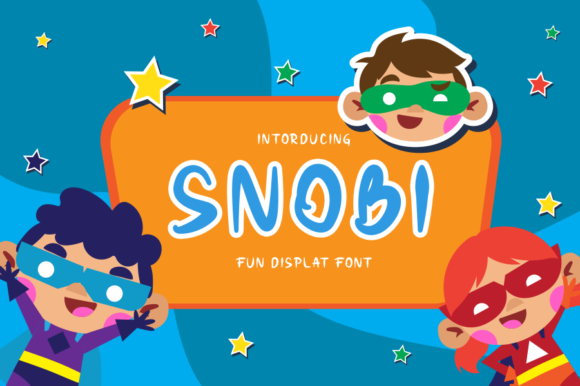
Snobi Font
Unleash your creativity and make a statement with Snobi Font, an extraordinary display font crafted by RantauType. This unique typeface captivates with its bold and cool aesthetics, adding a touch of whimsy and exclusivity to your designs.
With Snobi Font, you'll elevate your projects to new heights, leaving an unforgettable impression on your audience. Its eye-catching style commands attention, making it perfect for headlines, logos, posters, and branding. The font's clean lines and distinct letterforms create a visual symphony, instantly grabbing the attention of your readers.
Dive into the world of endless possibilities with Snobi Font. Its versatility knows no bounds, whether you're a graphic designer seeking to create captivating visuals, a web developer looking to add a touch of personality to your website, or a content creator seeking a unique font to make your words shine. Unleash your imagination and transform your creative vision into a reality with Snobi Font.
Don't settle for ordinary fonts. Embrace the extraordinary with Snobi Font. Let your creativity soar and make a lasting impact. Its unique style will set your designs apart, leaving your audience spellbound. Join the ranks of creative professionals who have discovered the magic of Snobi Font and elevate your work to new heights.